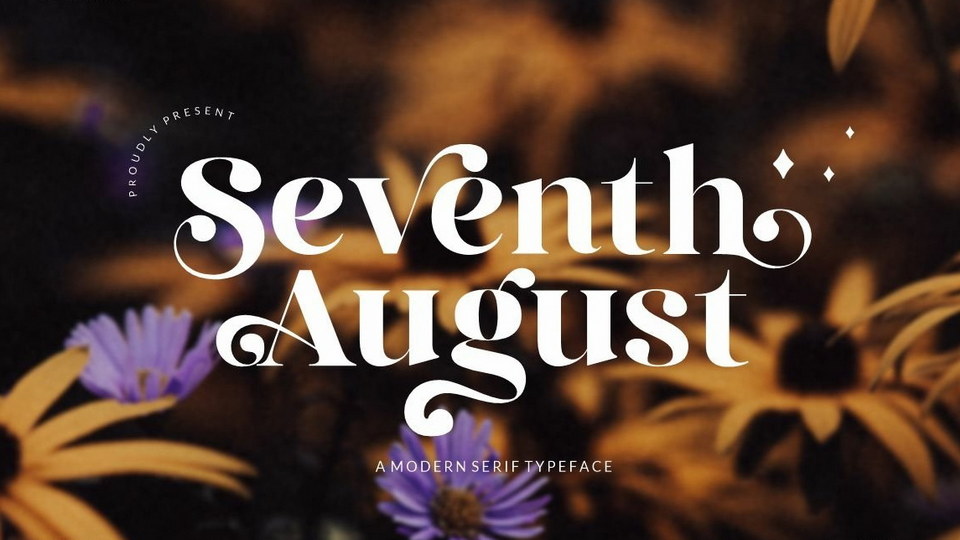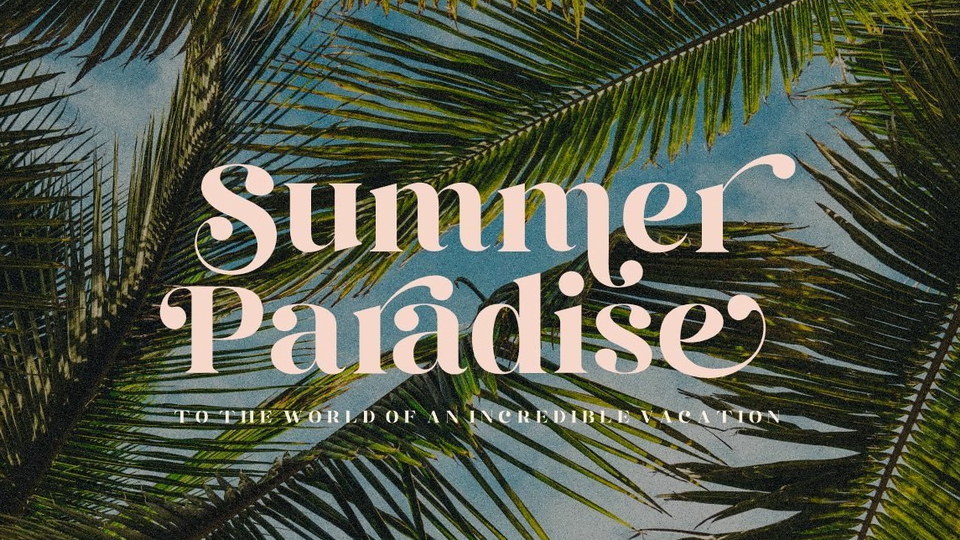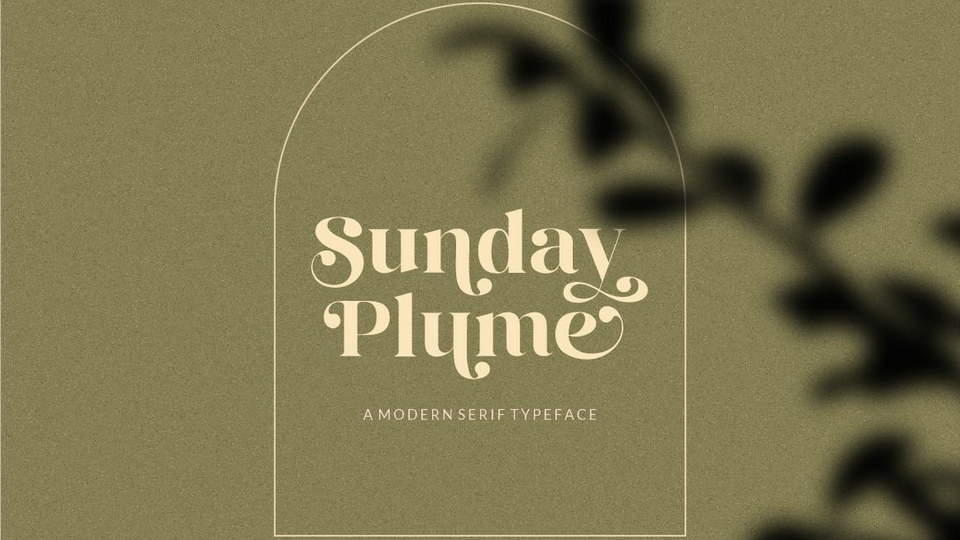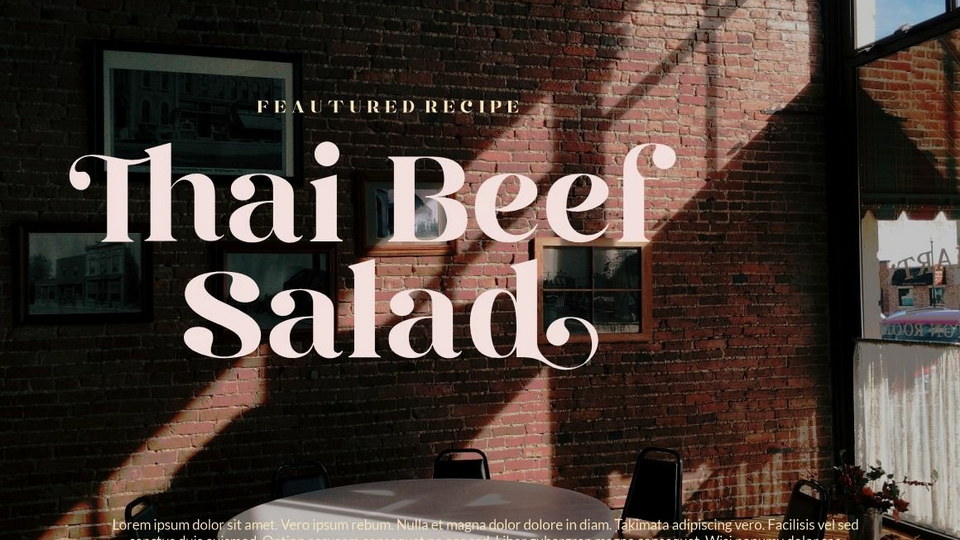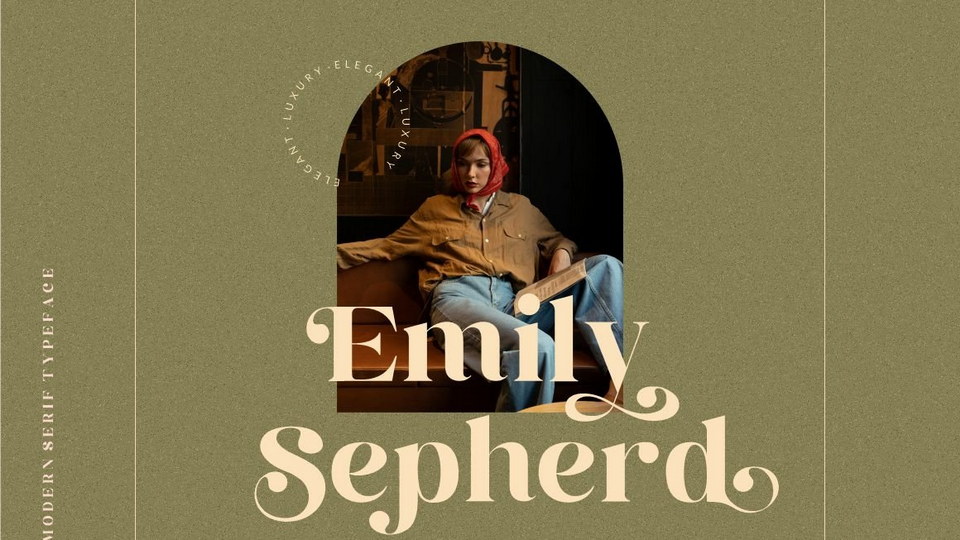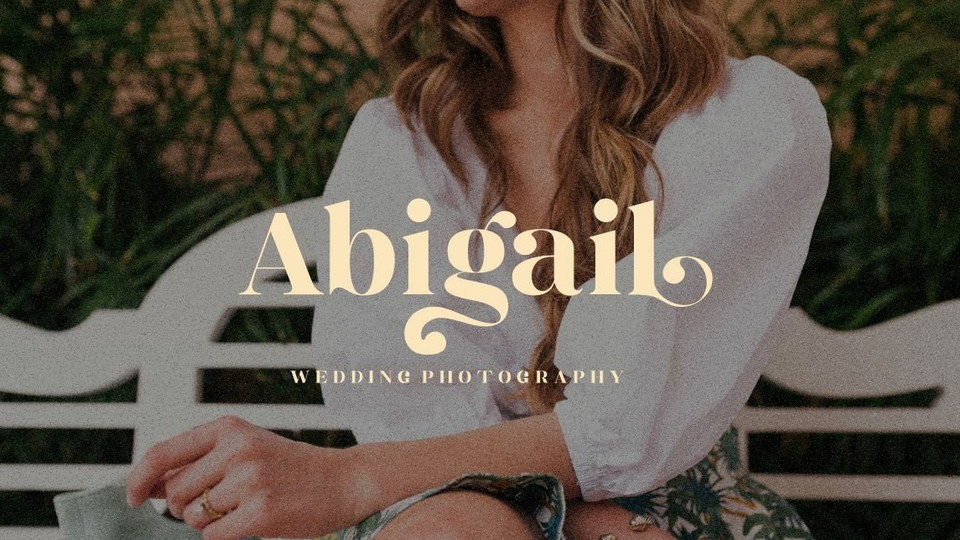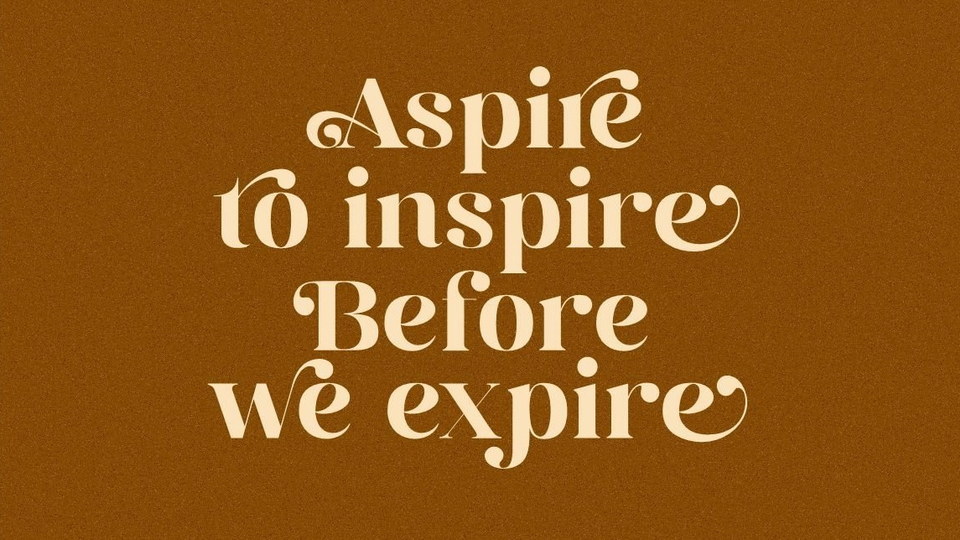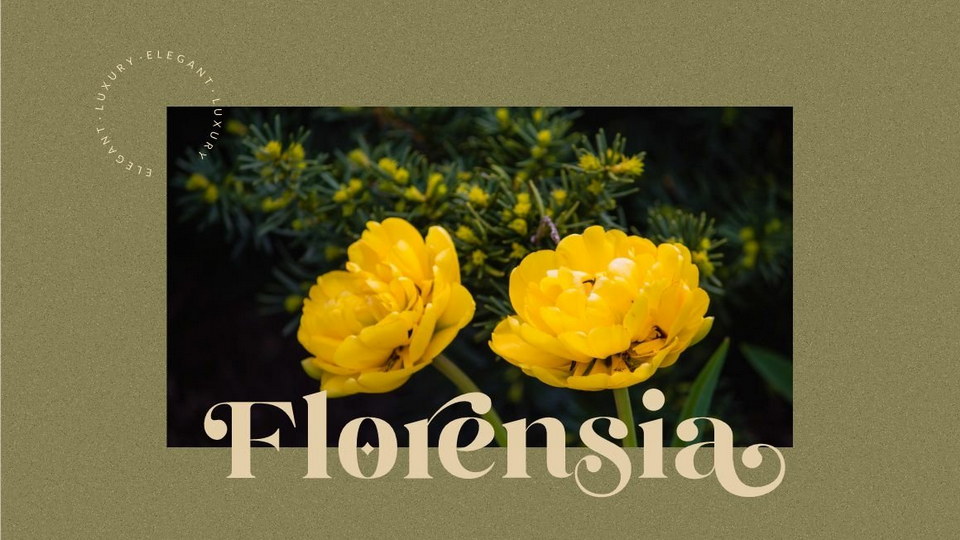
Seventh August Font
Seventh August is a beautiful and bold serif font, that has its own unique style and modern look. Seventh August is perfect for many purposes such as a headline, sub-headline, logo, and short body text for magazines, books, and many more